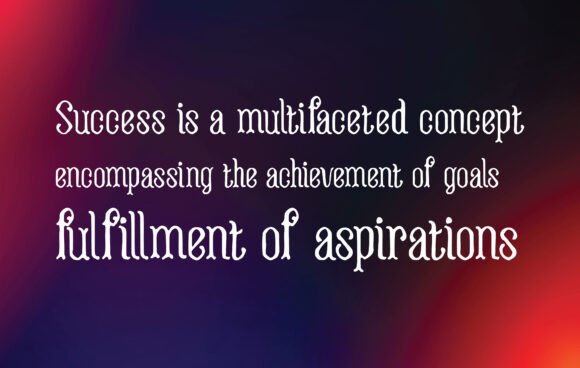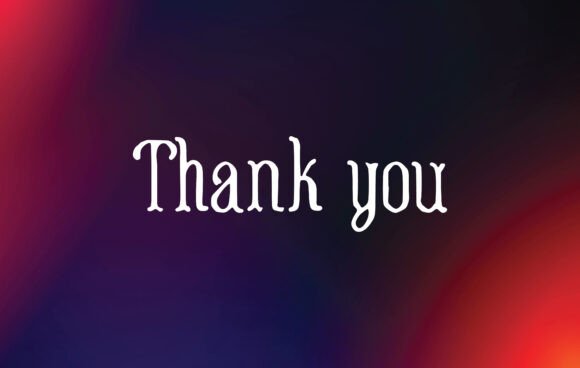
Discover the Charm of Donna Font: Elevate Your Designs with this Lovely Handwritten Font
Are you a designer or crafter looking for a font that can take your creative ideas to the next level? Look no further than Donna Font, a beautiful and lovely handwritten font that is sure to capture your audience’s attention. With its unique and elegant style, Donna Font is the perfect choice for creating eye-catching logos, branding, and quotes that will leave a lasting impression.
What Makes Donna Font So Special?
Donna Font is a carefully crafted handwritten font that exudes warmth and personality. Its flowing lines and delicate curves give it a distinctive and charming feel that is sure to add a touch of elegance to any design. Whether you’re creating a logo, branding materials, or social media graphics, Donna Font is the perfect choice for adding a personal and human touch to your work.
The Benefits of Using Donna Font
So why choose Donna Font over other fonts? Here are just a few benefits of using this lovely handwritten font:
- Elegant and Sophisticated: Donna Font has a sophisticated and elegant feel that is sure to elevate your designs and give them a professional finish.
- Versatile: This font is versatile and can be used for a wide range of design projects, from logos and branding to quotes and social media graphics.
- Easy to Read: Donna Font is clear and easy to read, making it perfect for body text and captions.
- Unique: With its distinctive and charming style, Donna Font is sure to set your designs apart from the crowd.
How to Use Donna Font in Your Designs
Donna Font is easy to use and can be incorporated into your designs in a variety of ways. Here are a few ideas to get you started:
- Logos: Use Donna Font to create a beautiful and elegant logo that reflects your brand’s personality and style.
- Branding: Incorporate Donna Font into your branding materials, such as business cards, letterheads, and packaging, to add a touch of elegance and sophistication.
- Quotes: Use Donna Font to create eye-catching quotes and social media graphics that will engage and inspire your audience.
- Signage: Donna Font is perfect for creating eye-catching signage, such as menus, flyers, and posters.
Tips for Getting the Most Out of Donna Font
Here are a few tips for getting the most out of Donna Font:
- Experiment with Different Sizes: Donna Font looks great in a variety of sizes, from large headings to smaller body text.
- Pair with Other Fonts: Try pairing Donna Font with other fonts to create a unique and interesting contrast.
- Use in Combination with Images: Donna Font looks great in combination with images and graphics, and can be used to add a touch of elegance and sophistication to your designs.
In conclusion, Donna Font is a lovely and beautiful handwritten font that has the potential to take your creative ideas to the highest level. With its elegant and sophisticated style, versatility, and ease of use, Donna Font is the perfect choice for designers and crafters looking to add a touch of elegance and sophistication to their designs. So why wait? Download Donna Font today and start creating stunning designs that will leave a lasting impression on your audience.